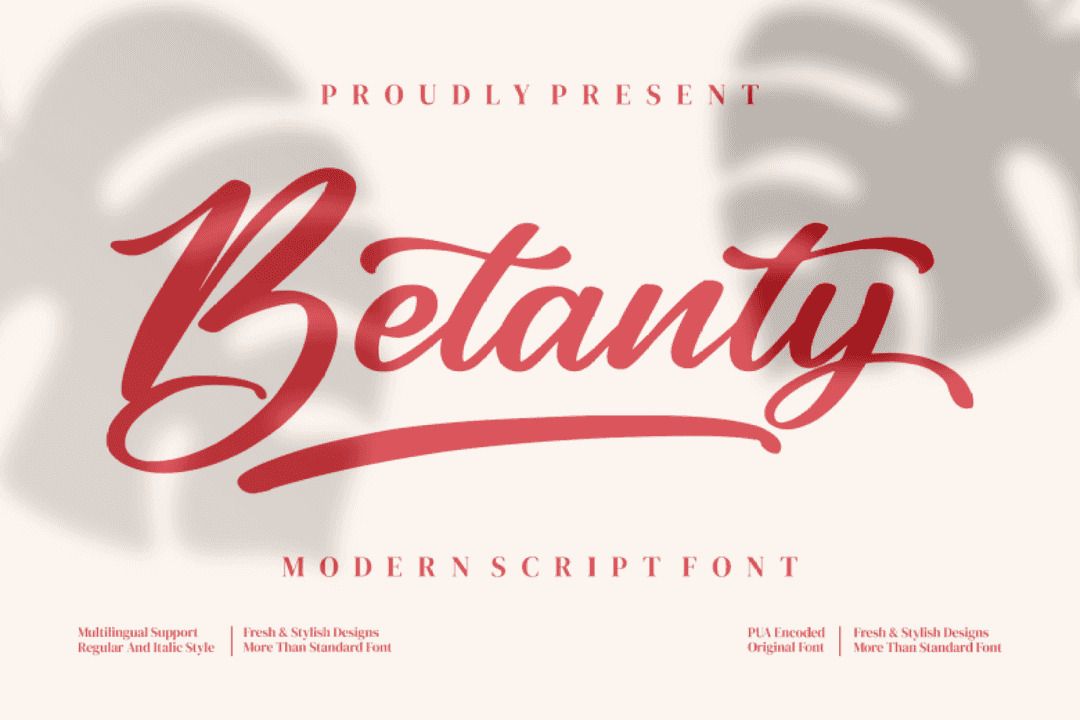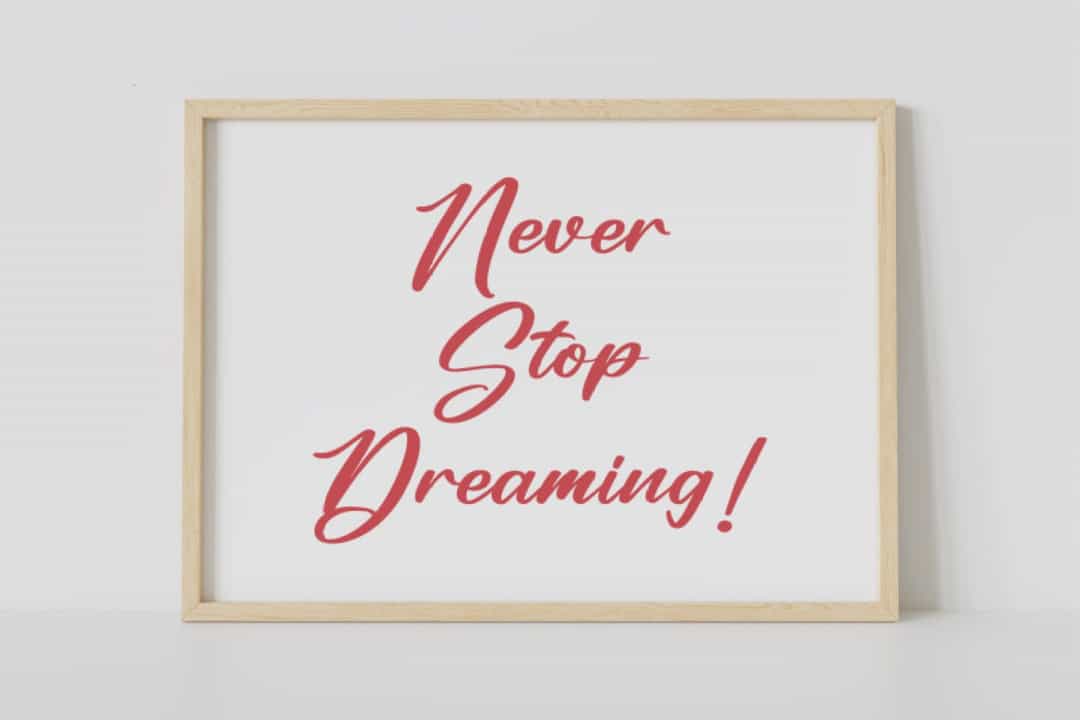
Betanty is a stunning script font designed for calligraphy that offers graceful lines. This font comes complete with well-balanced characters that complement many designs seamlessly. PUA encoded, you have access to all its glyphs, swashes and characters easily!